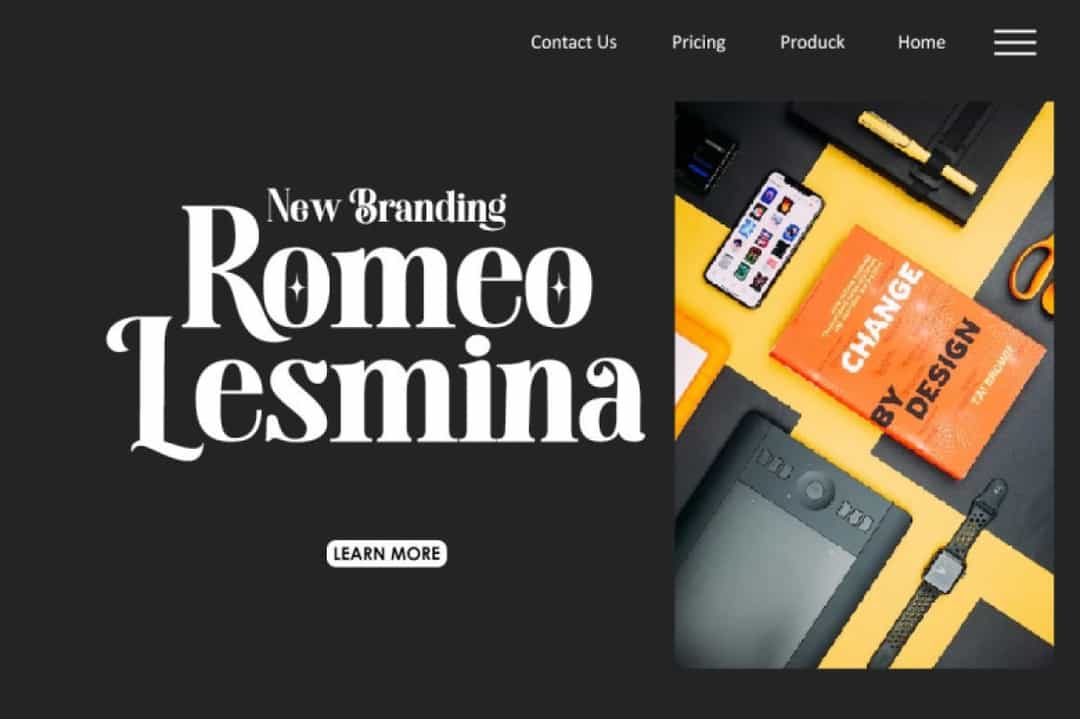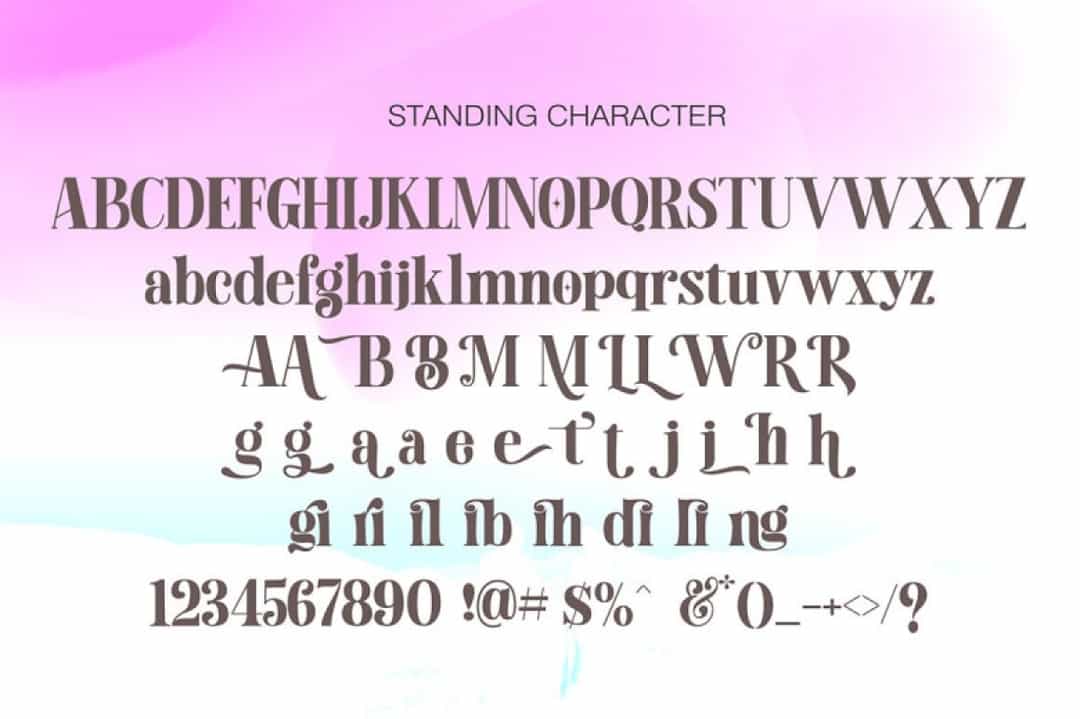
Discover Standing Font, part of the Serif Basic collection—a versatile and unique font perfect for adding a personal touch to your projects. Download it for free and enjoy crafting designs with style, from invitations to social media posts. This font is available exclusively for personal use, giving you the freedom to create without limits. Unlock your creativity with Standing Font today!
These elegant serif fonts combine vintage flair with elegance to form the ideal complement to each other, creating the ideal way to design labels or signage for logos advertising apparel, design labels or signage projects.